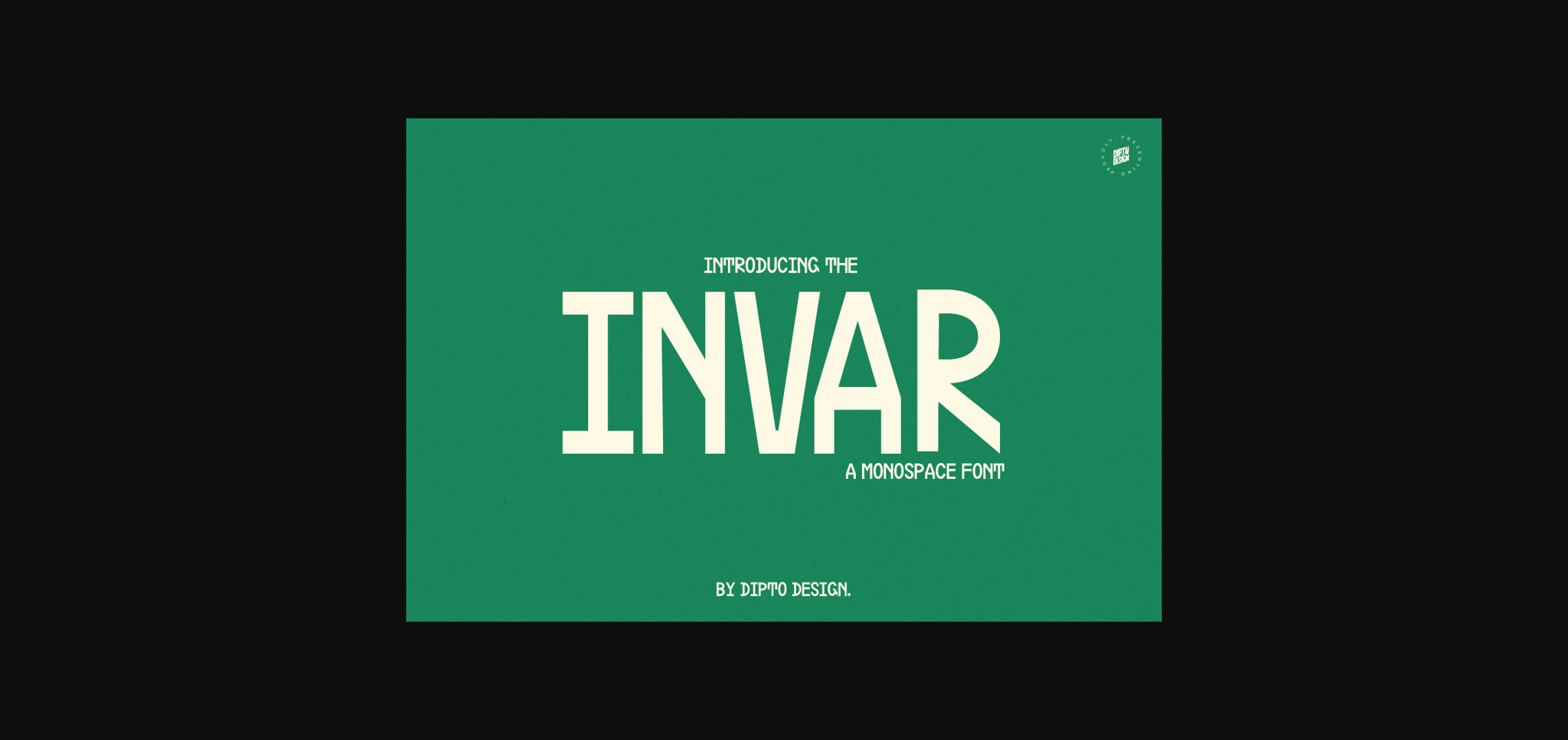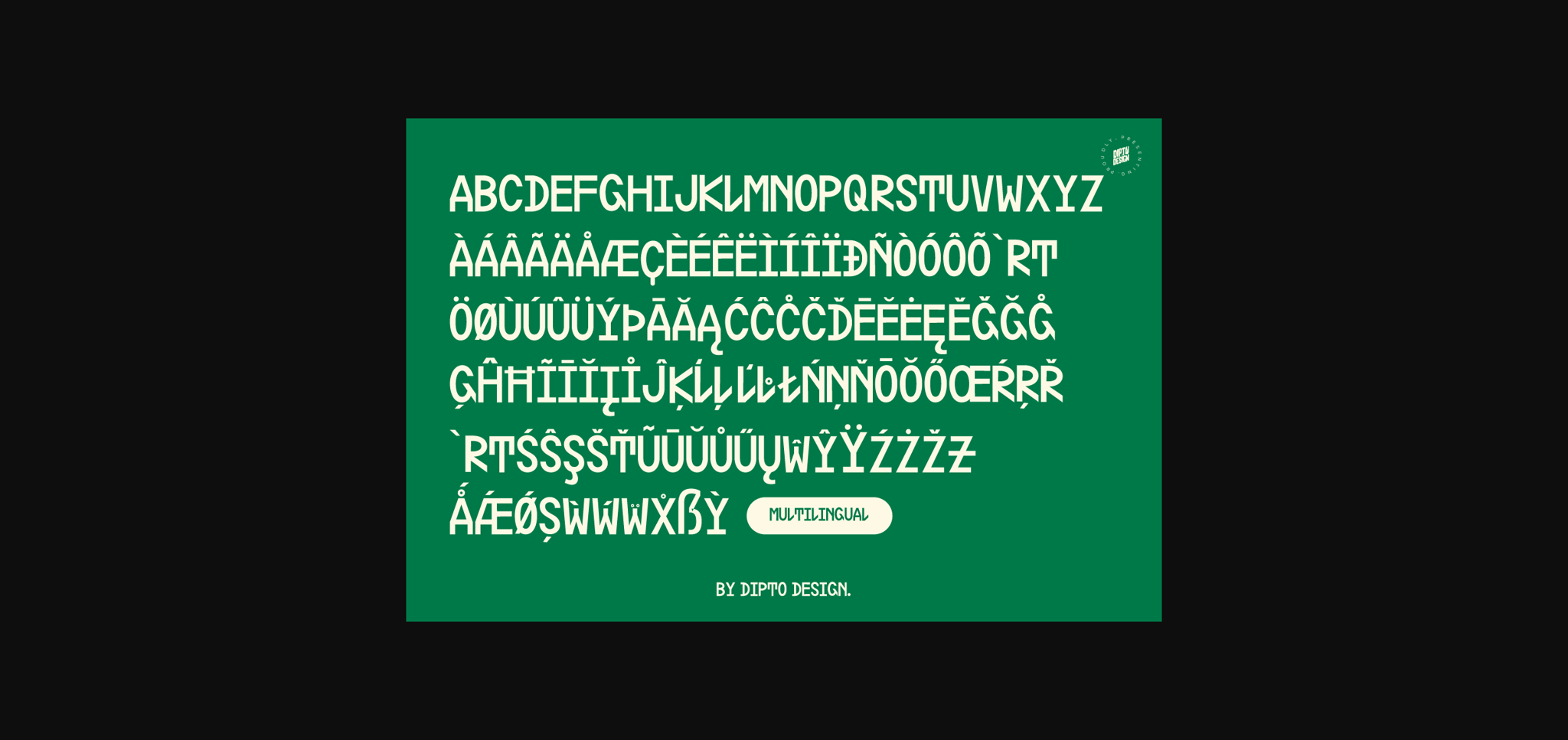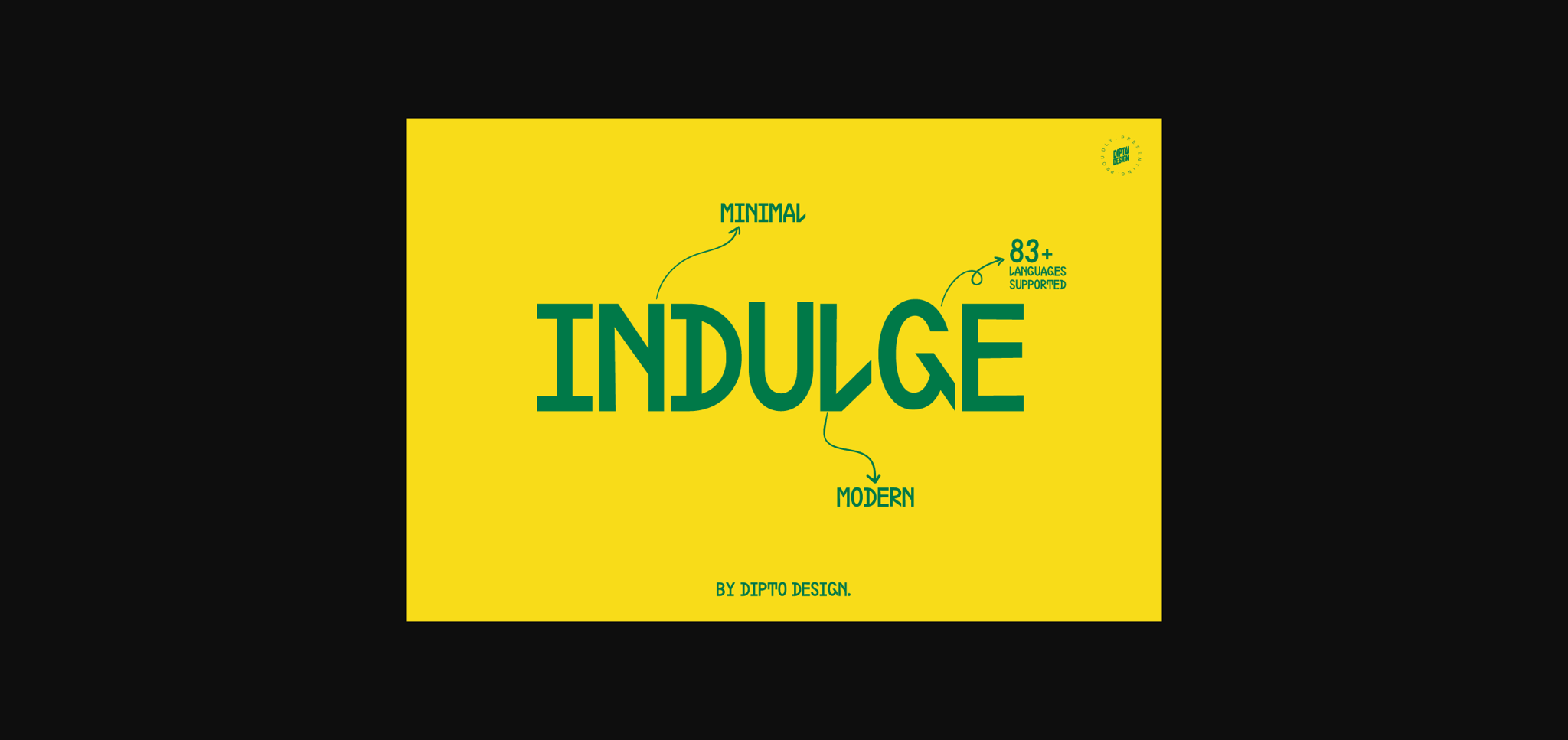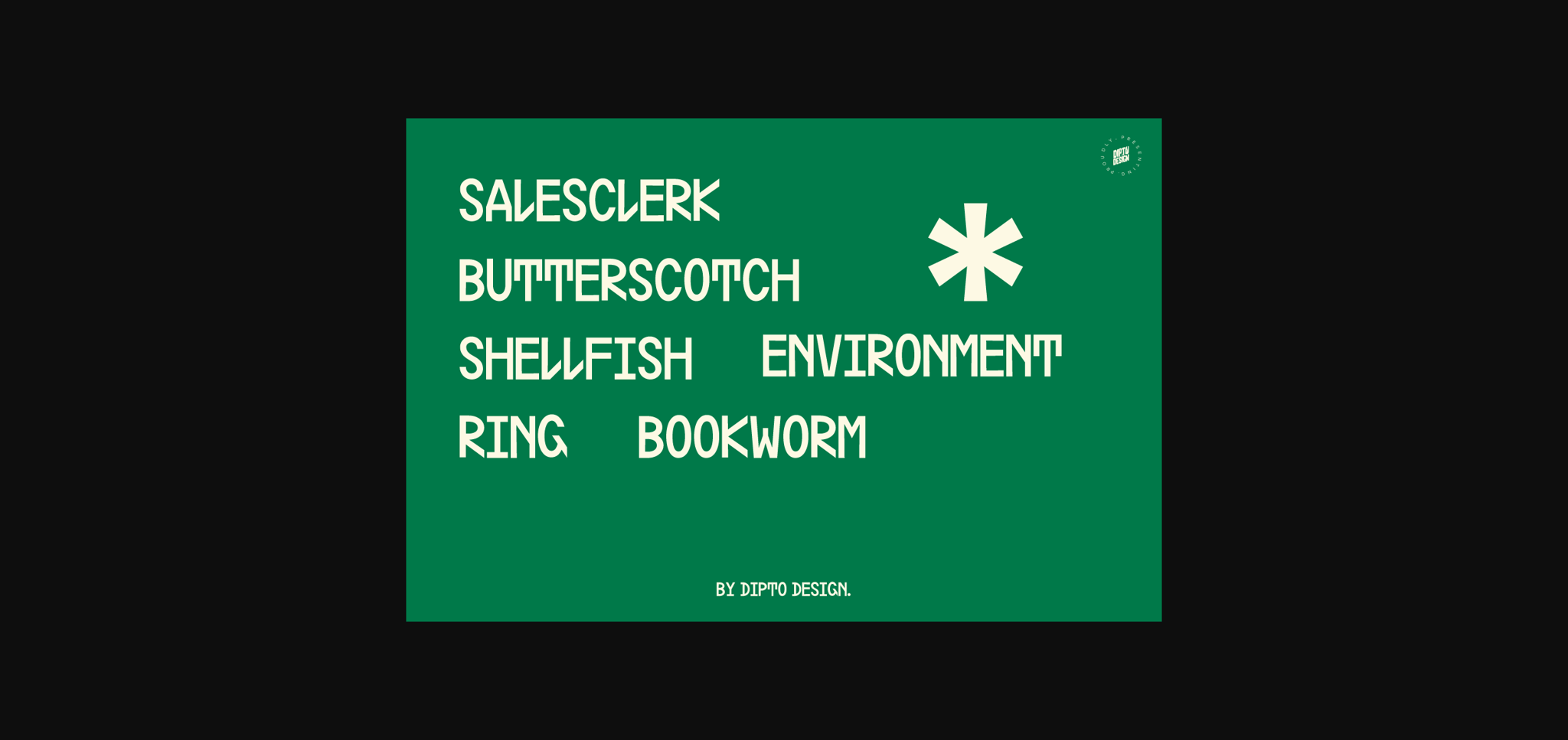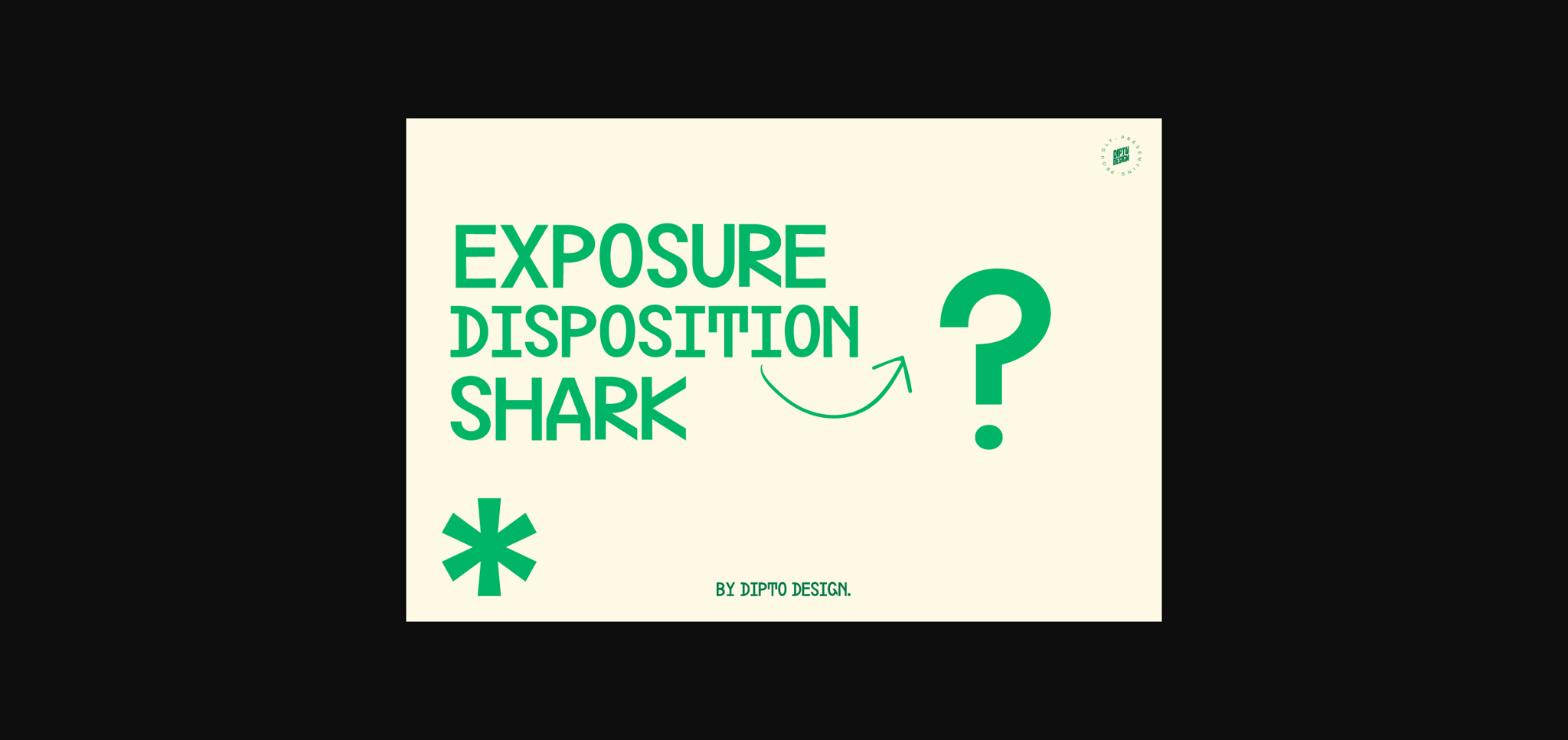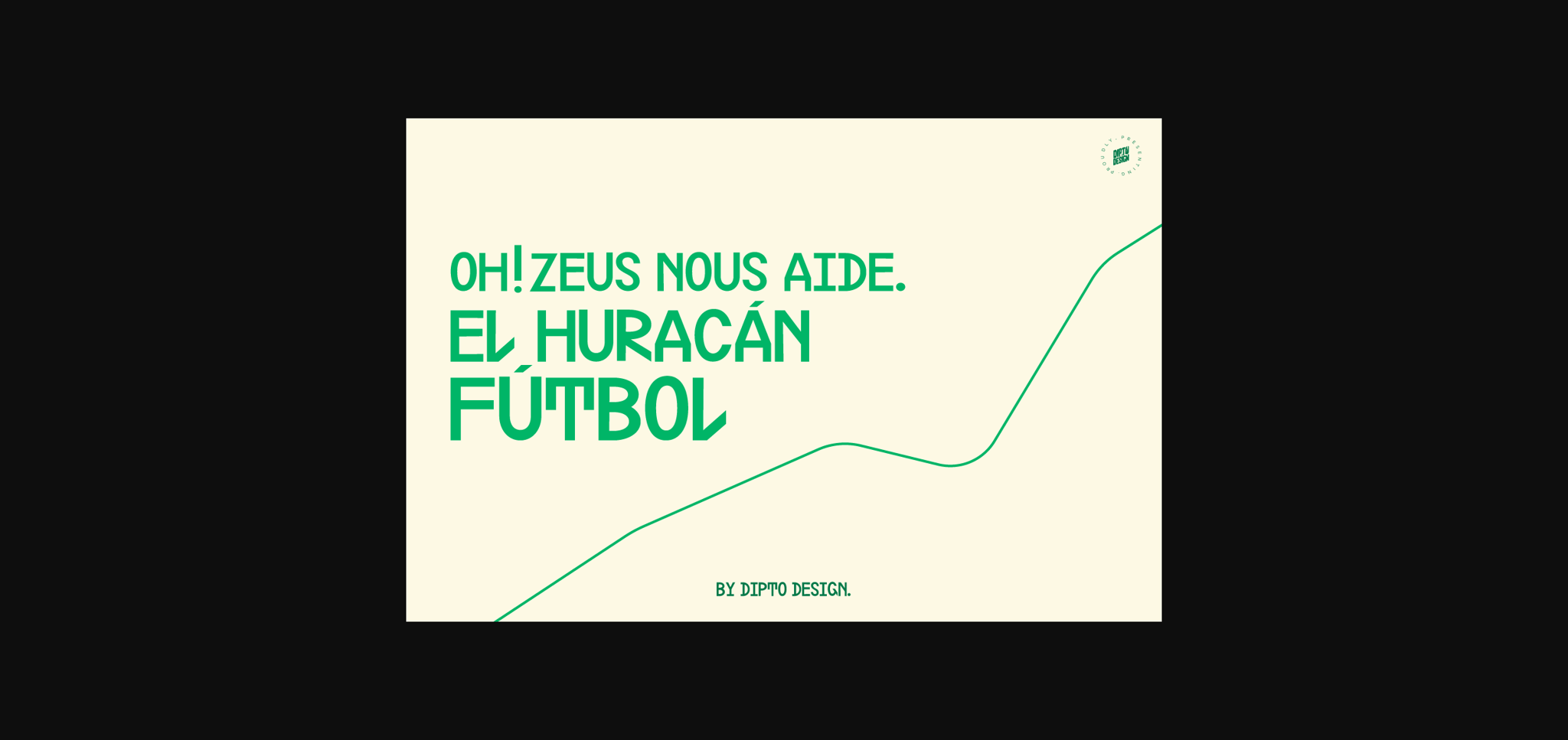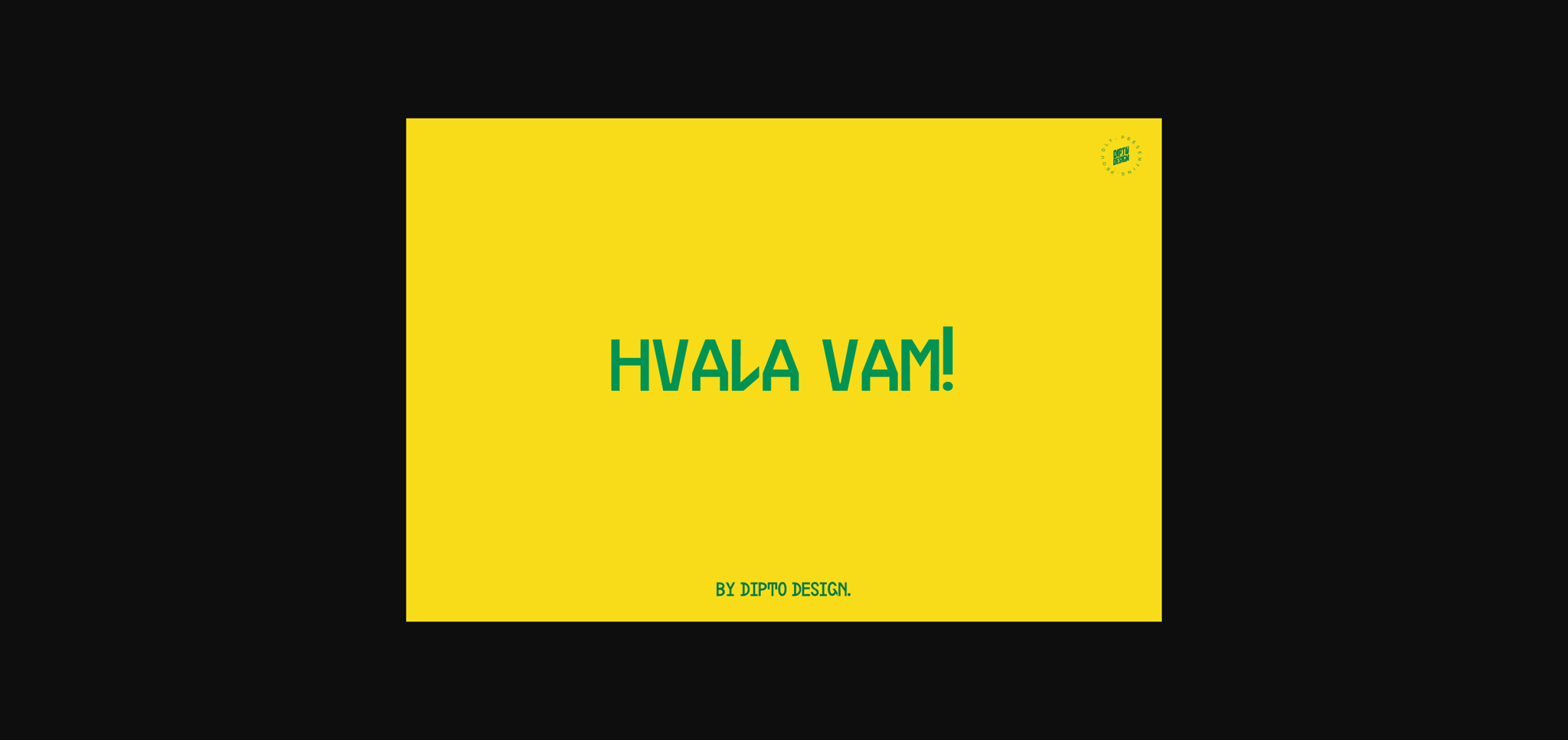
About Invar Font
Meet Invar, a sleek monospaced font that merges precision and creativity. With consistent character width, it brings order to your projects without stifling creativity. Ideal for coding and design, Invar offers clarity and timeless style. Download now for designs that stand the test of time